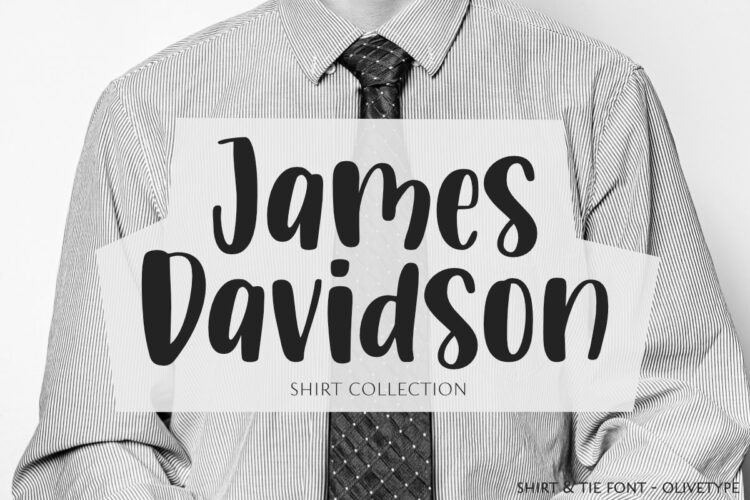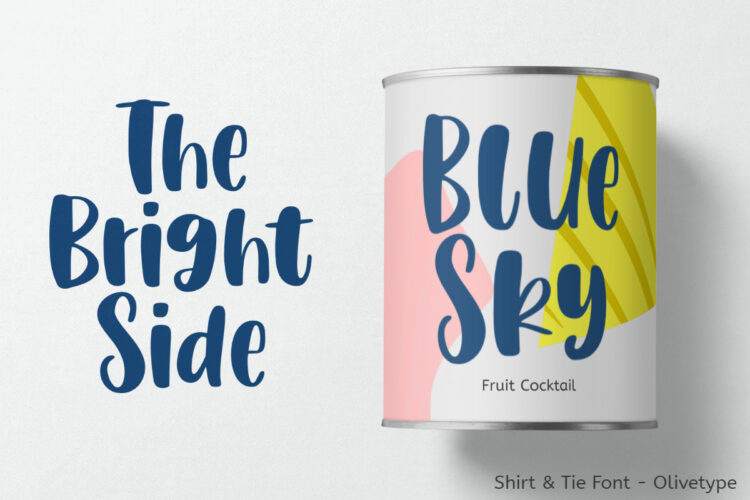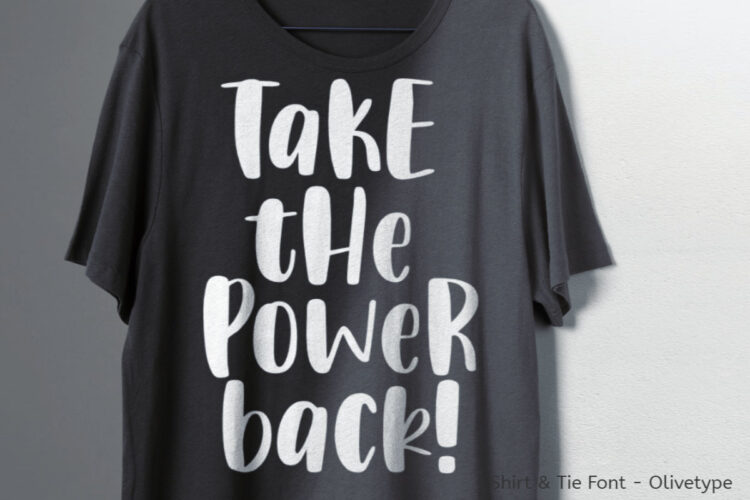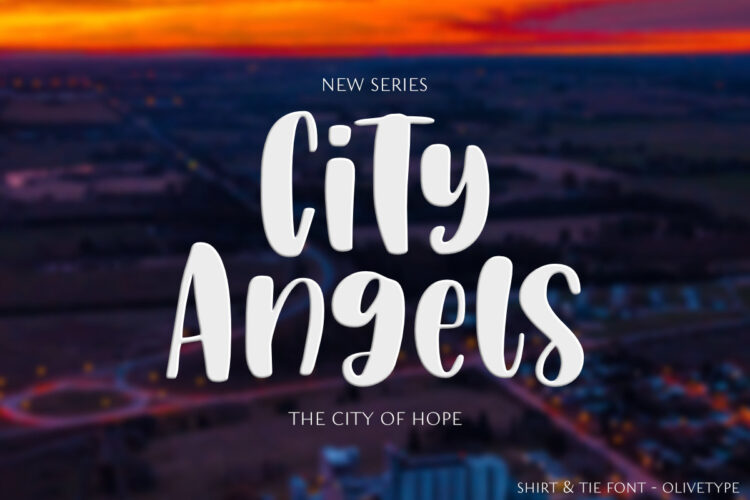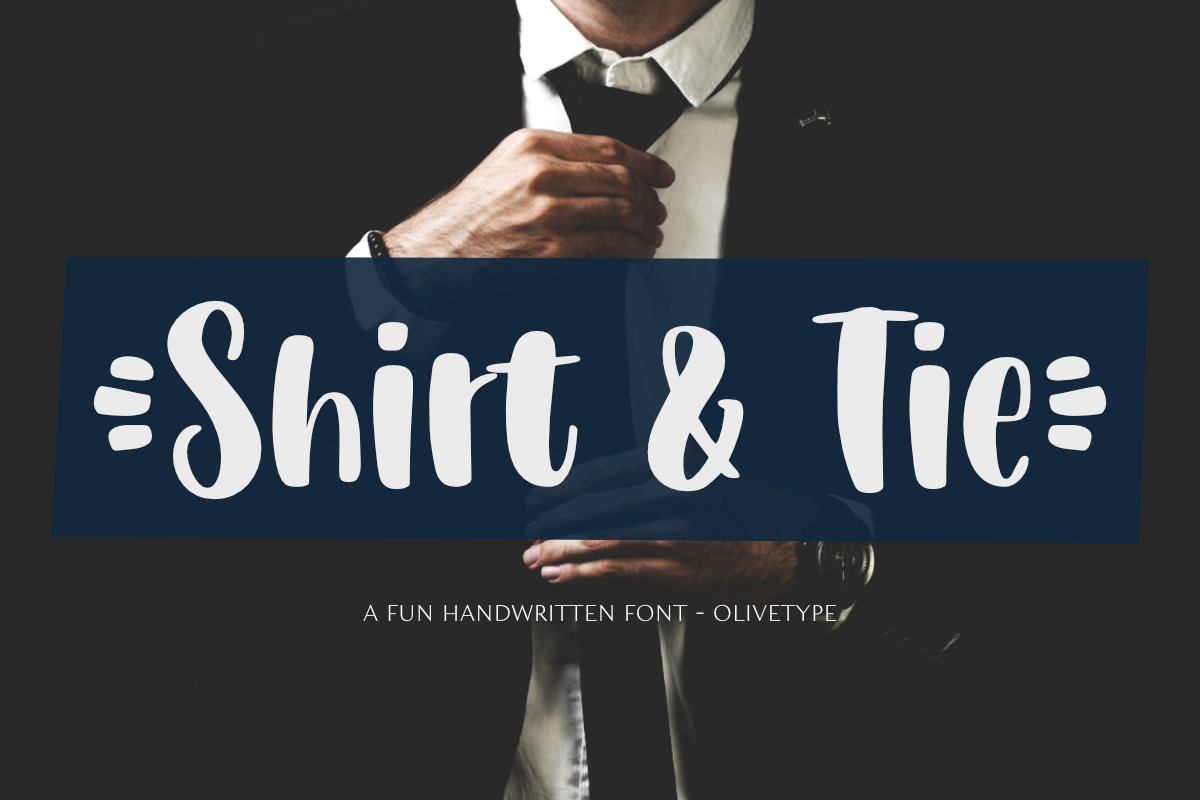
Shirt & Tie is a clean, relaxed, bold, and smooth display font. Its casual charm makes it appear wonderfully down-to-earth, readable, and ultimately, incredibly versatile, fitting a wide variety of creative ideas from poster, logos, branding, product packaging to crafty DIY projects and more.
This font is supporting Multi-Languages, which includes: Afrikaans Albanian Catalan Danish Dutch English Estonian Finnish French German Italian Norwegian Portuguese Spanish Swedish Zulu.